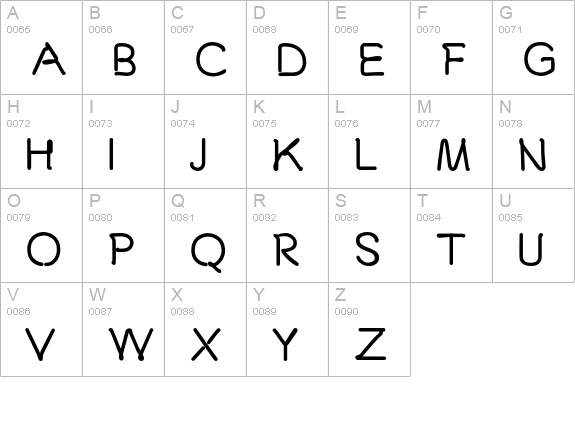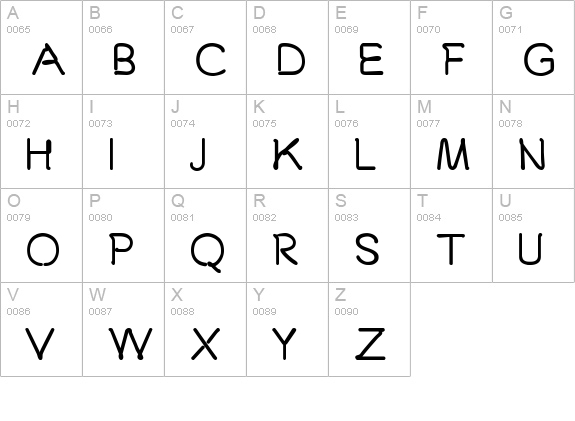
24HRS Font Details
Introducing the captivating 24HRS font, designed to make your projects stand out with its unique and modern aesthetic. This versatile typeface combines sleek lines and bold strokes to create a dynamic and eye-catching look. Whether you're designing a poster, logo, or website, 24HRS font adds a touch of sophistication and style to your work. The best part? 24HRS font is available for free download at FontsMarket.com, where you can easily access this stunning font to elevate your designs. With its wide range of characters and glyphs, this font offers endless possibilities for creative expression. Don't miss out on the chance to enhance your projects with the elegant and contemporary 24HRS font – download it today and let your creativity shine!